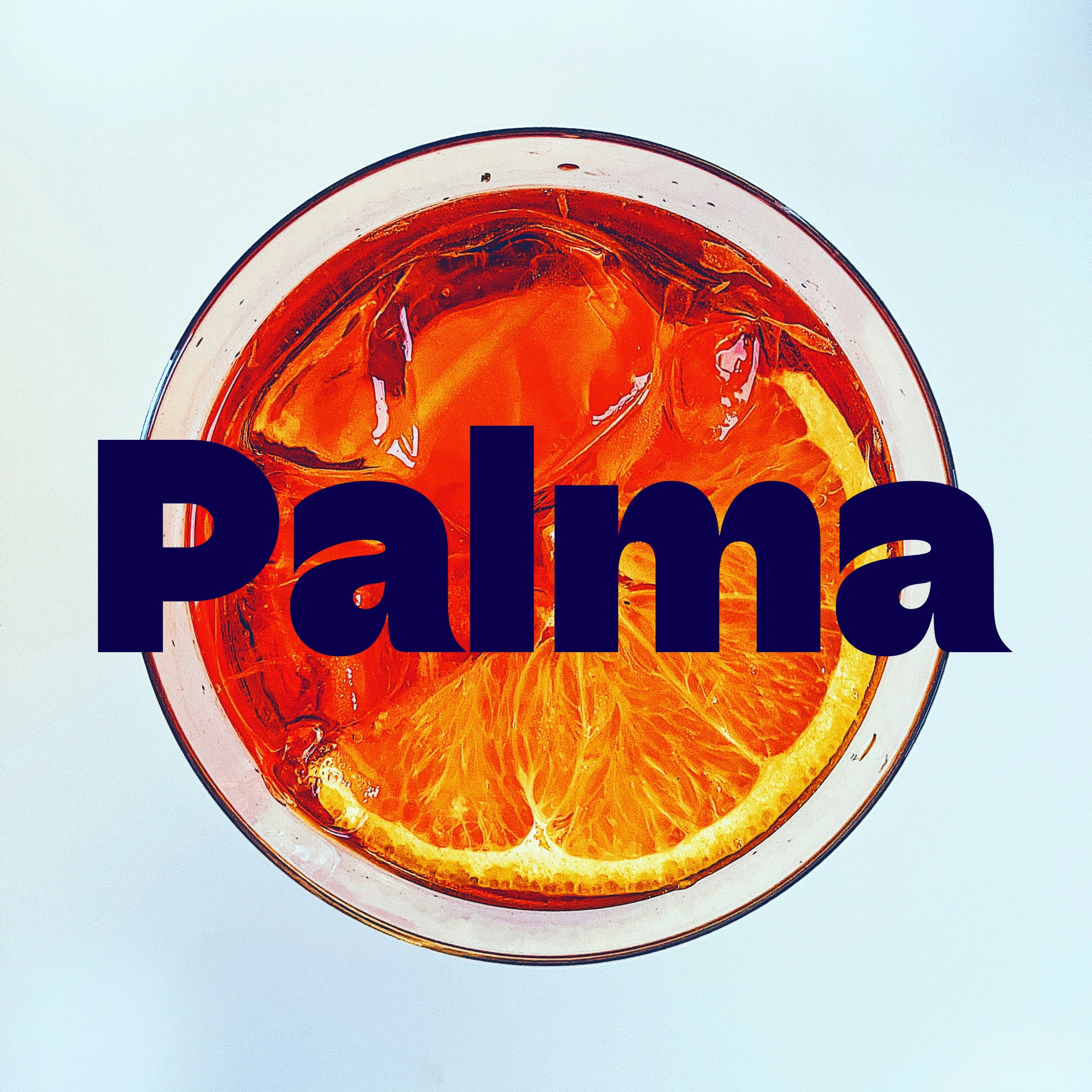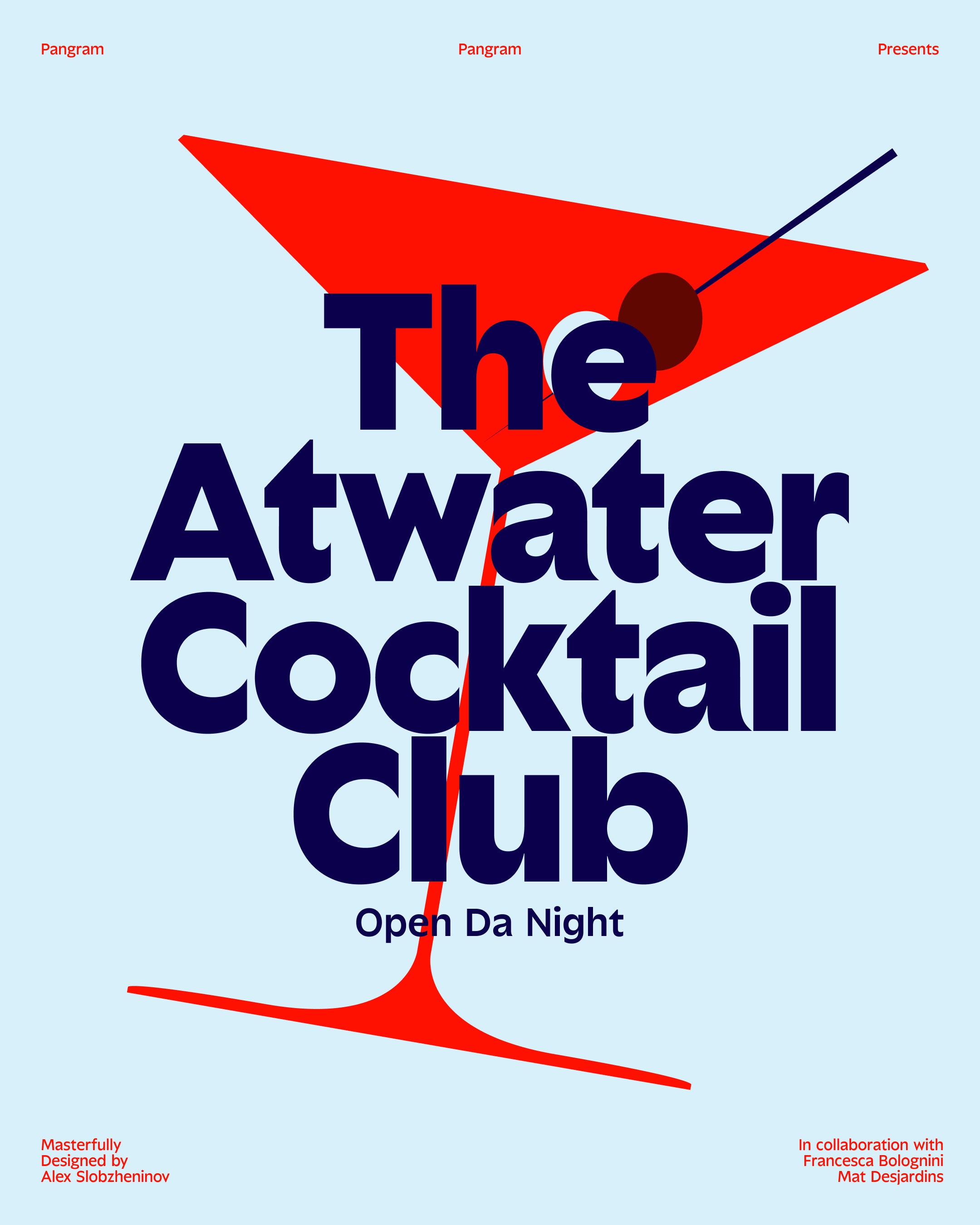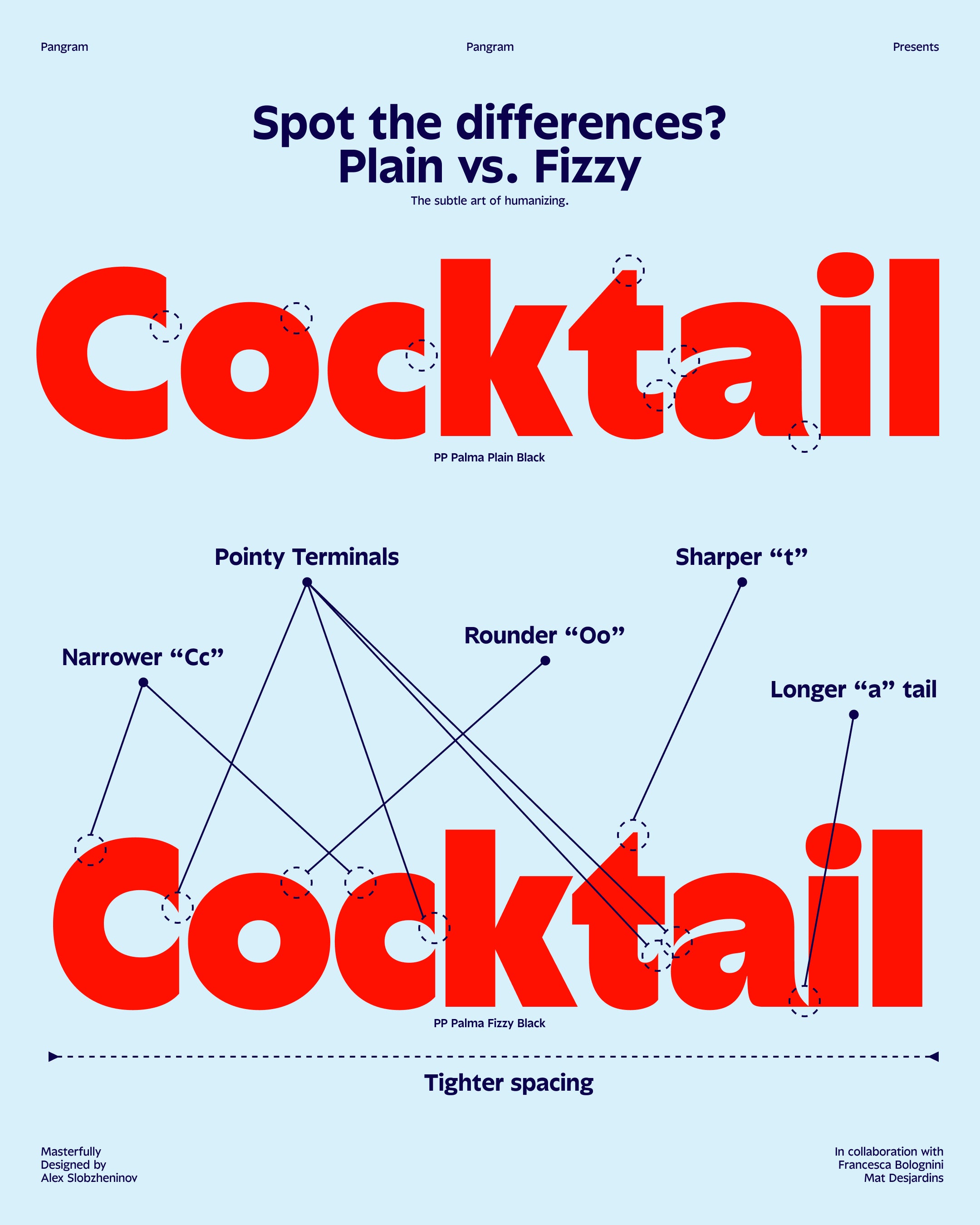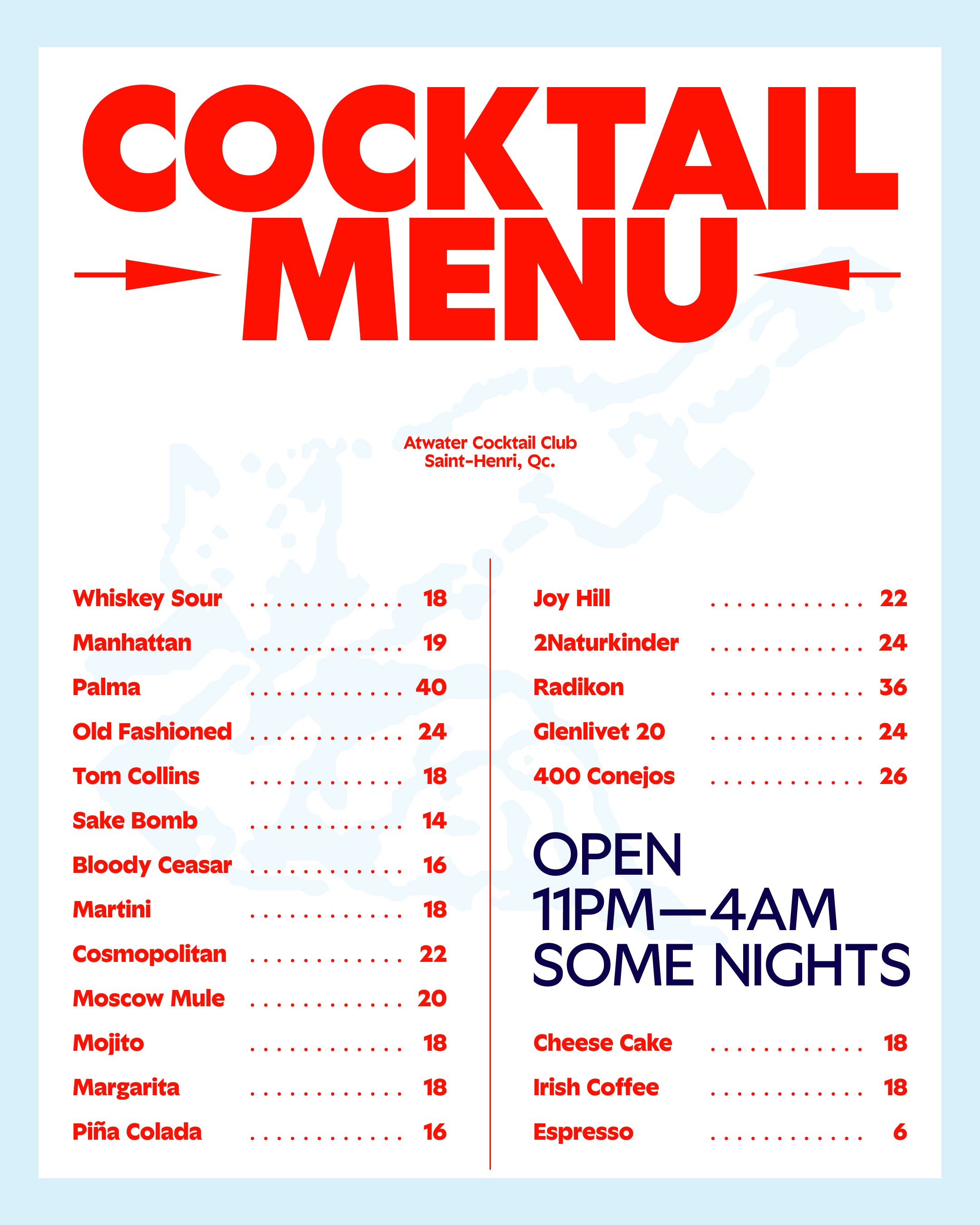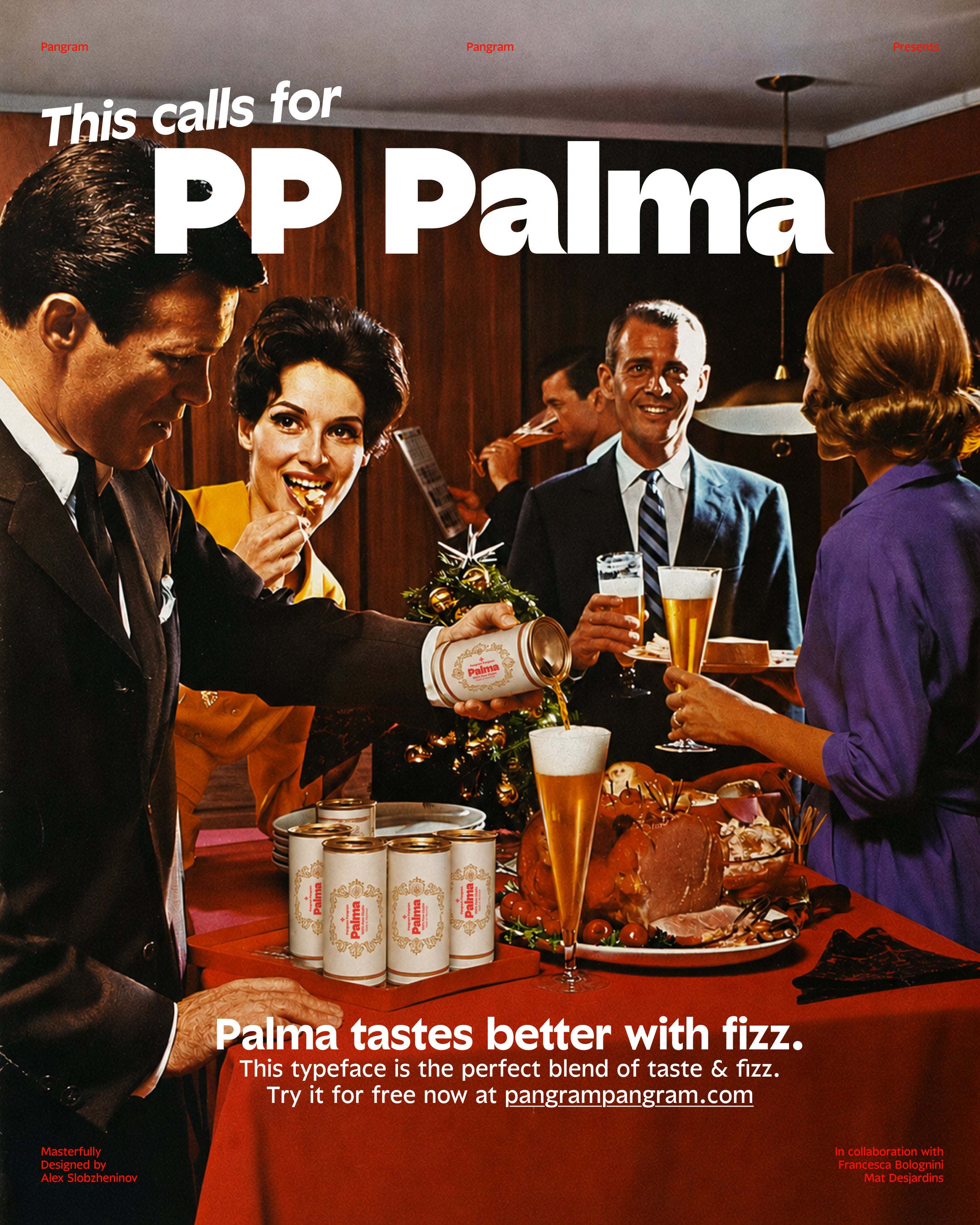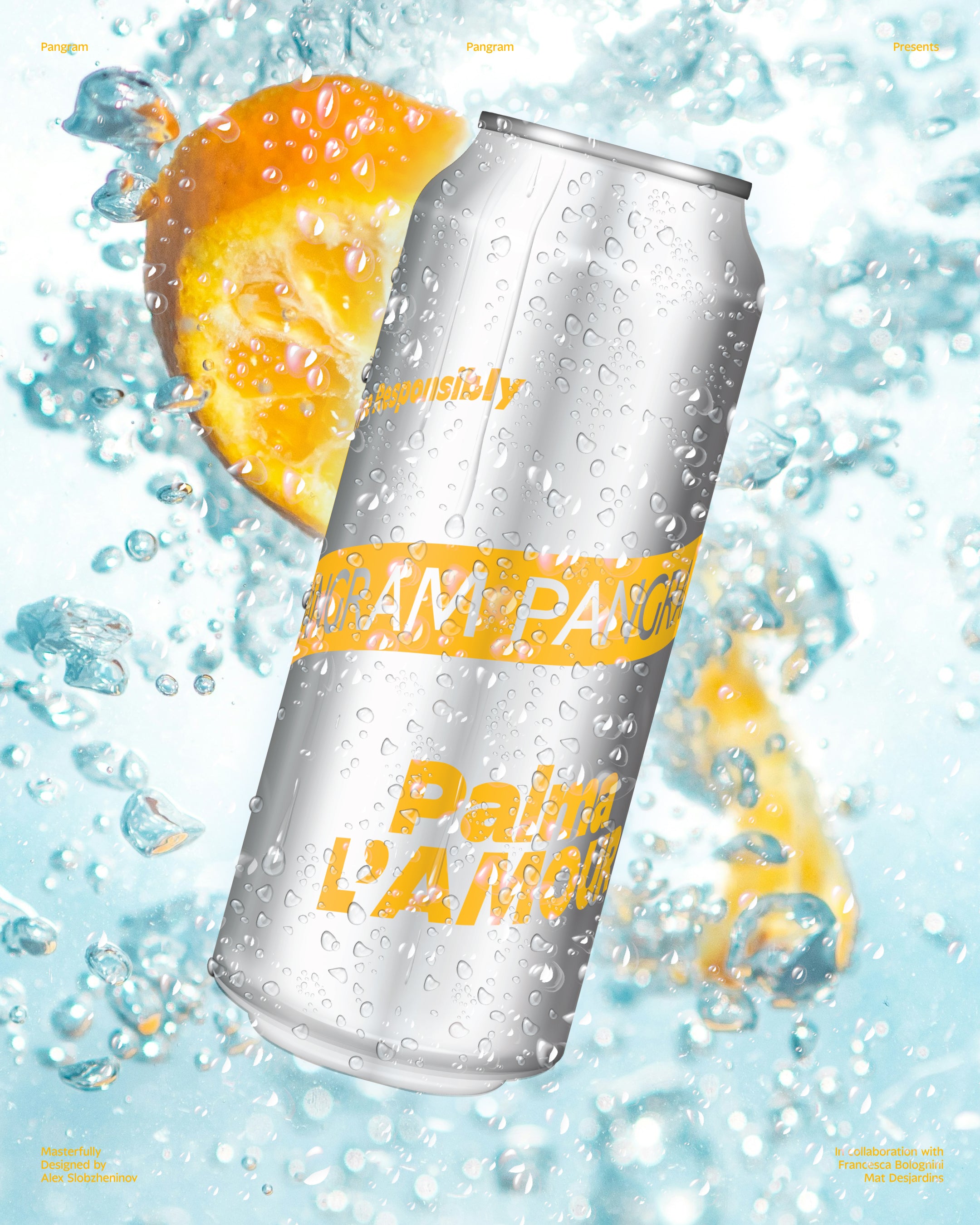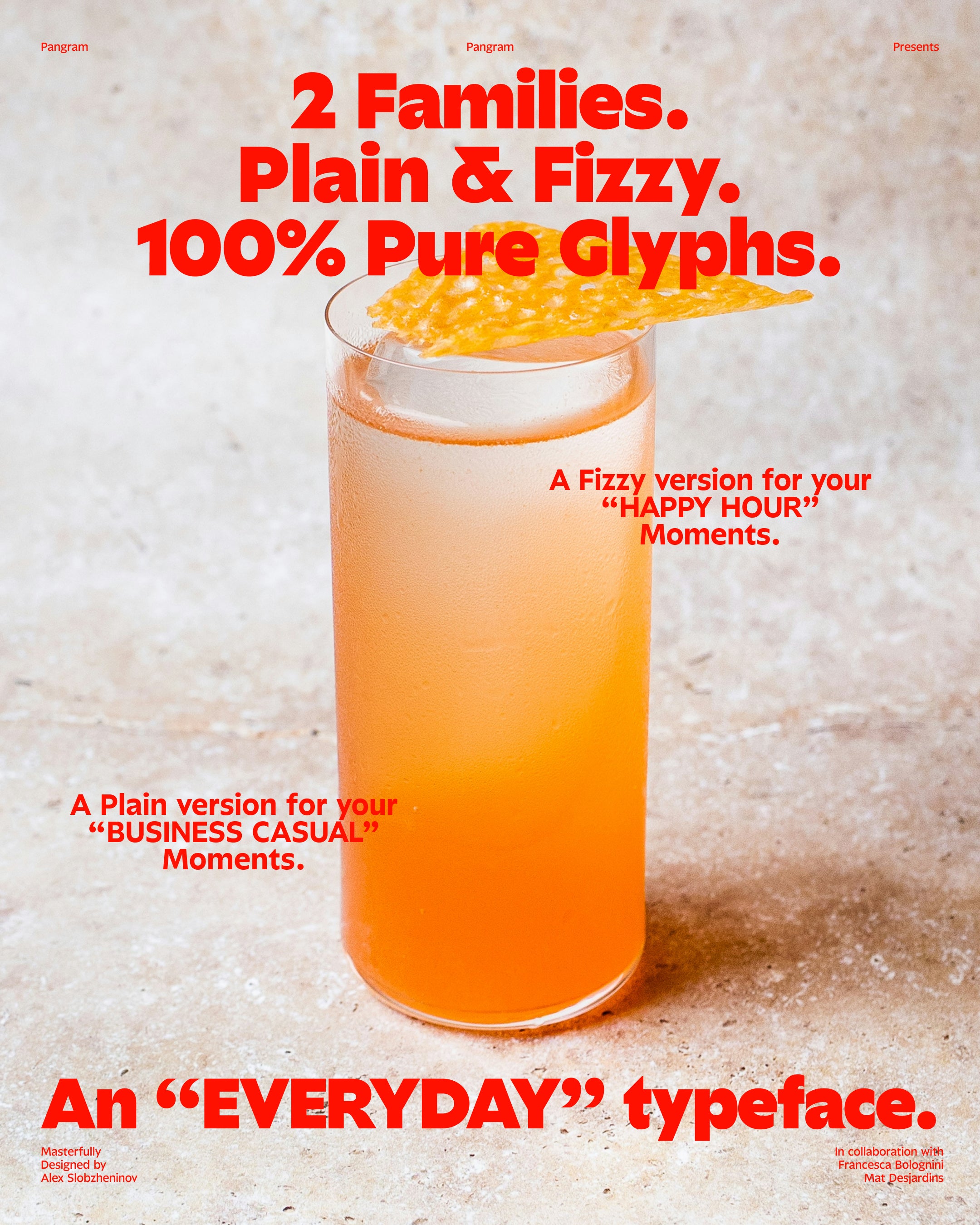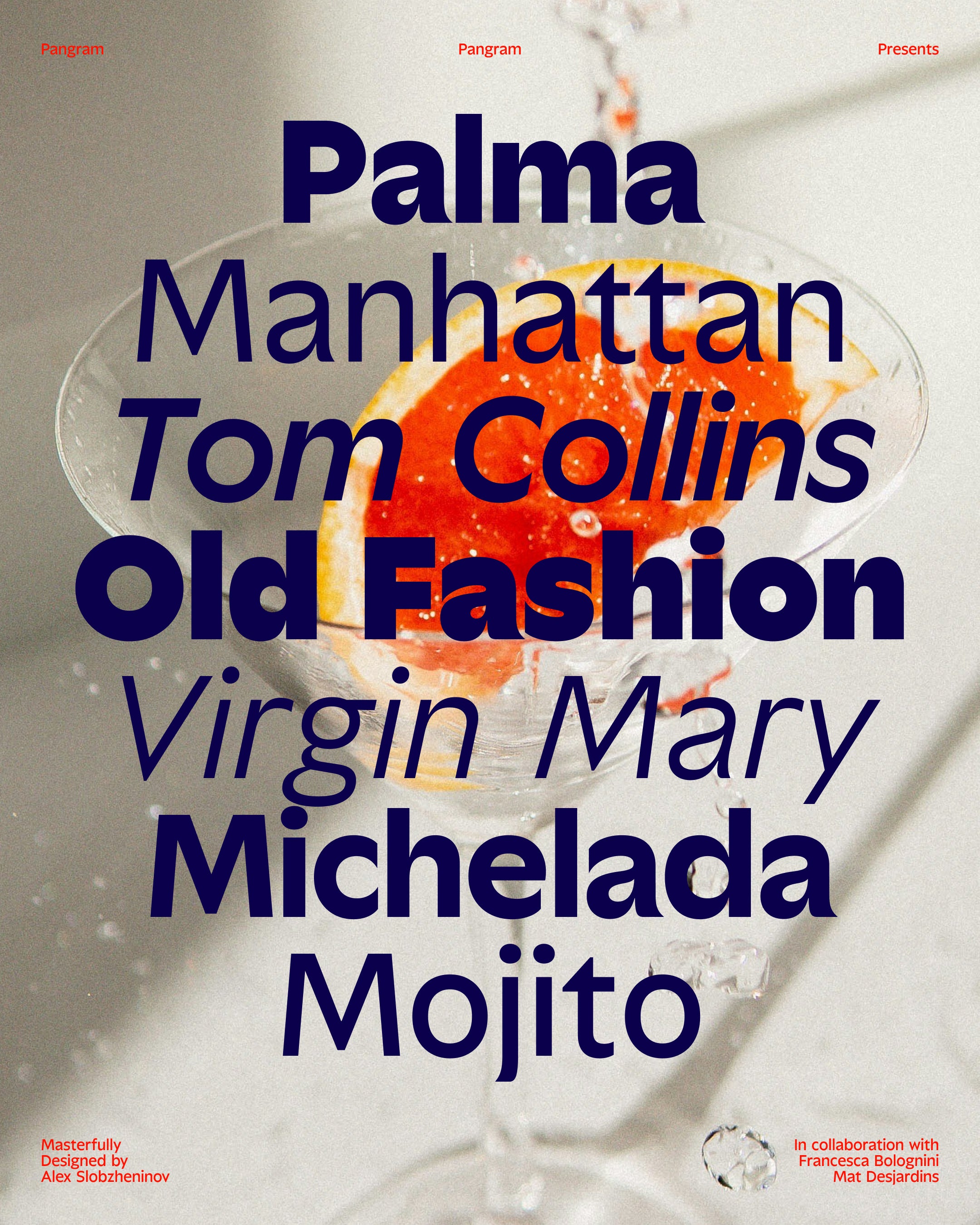
Palma is variable
Palma
A familiar Humanist with Fizz.
PP Palma is a spritzy sans family of a dual geo-humanist nature. Designed for versatility, the typeface spans across the two genres, combining the best of both worlds. Palma is loosely inspired by the giants like Antique Olive, Johnston and Avenir, but treats the references lightheartedly, going for a different route with a flair.
One part of the family is toned-down and humanist, featuring open shapes, natural letterforms and balanced proportions, intended for subtle roles when reading comfort and legibility are crucial. The other subfamily, Fizzy, cranks up the flavor all the way up, turning the shapes geometric, tightening spacing and making details more crisp and accentuated, perfect for juicy large-size uses.
While not a typical “workhorse” grotesk, Palma is crafted to be adaptive for a wide range of applications from long-form reading to headlines and posters; from soft neutrality to memorable resonance. The font family comes in 28 styles: 2 subfamilies of 7 weights plus italics; all also available in the variable format. It includes many OpenType features for professional typesettings and supports a wide range of Latin-based languages.